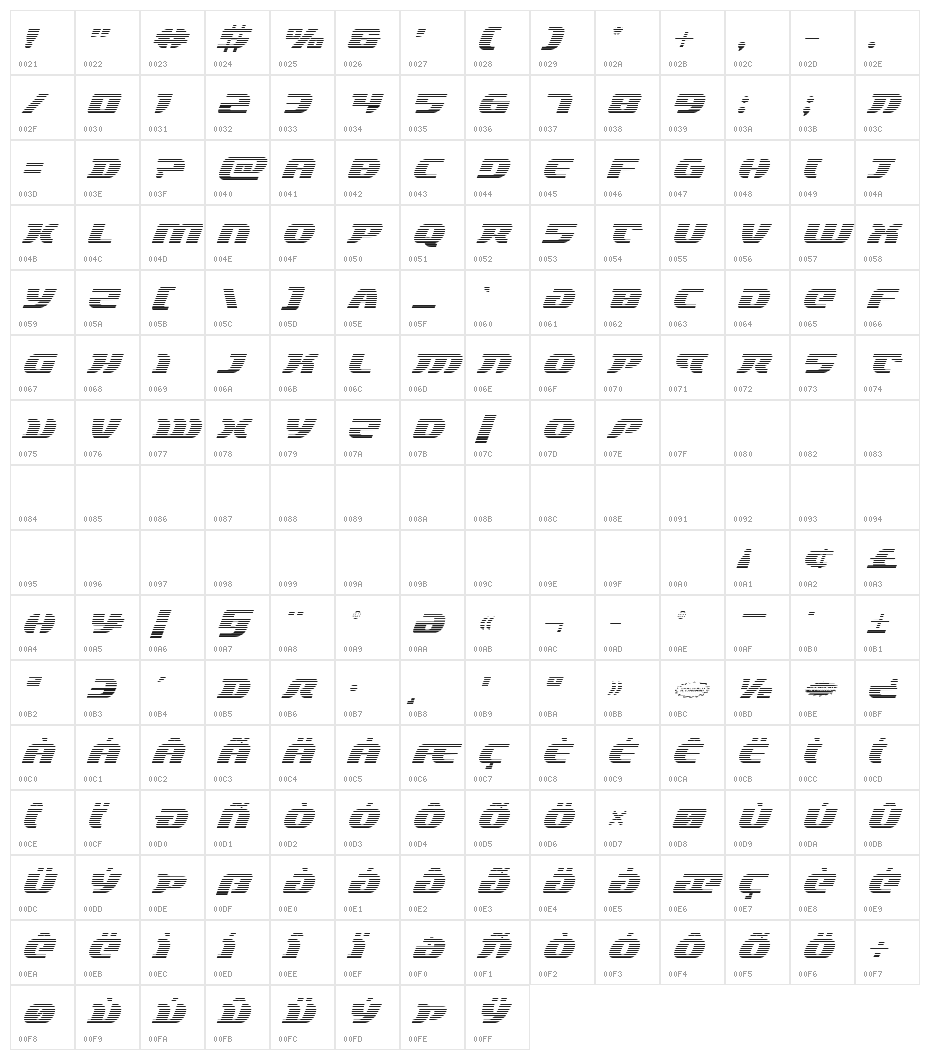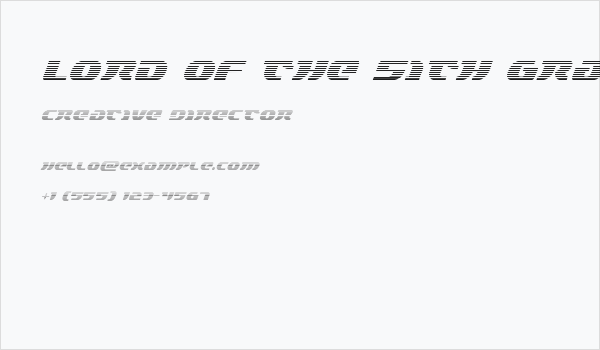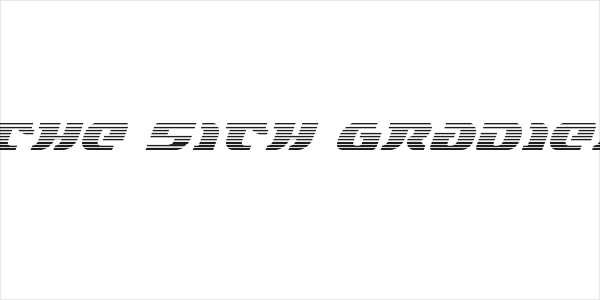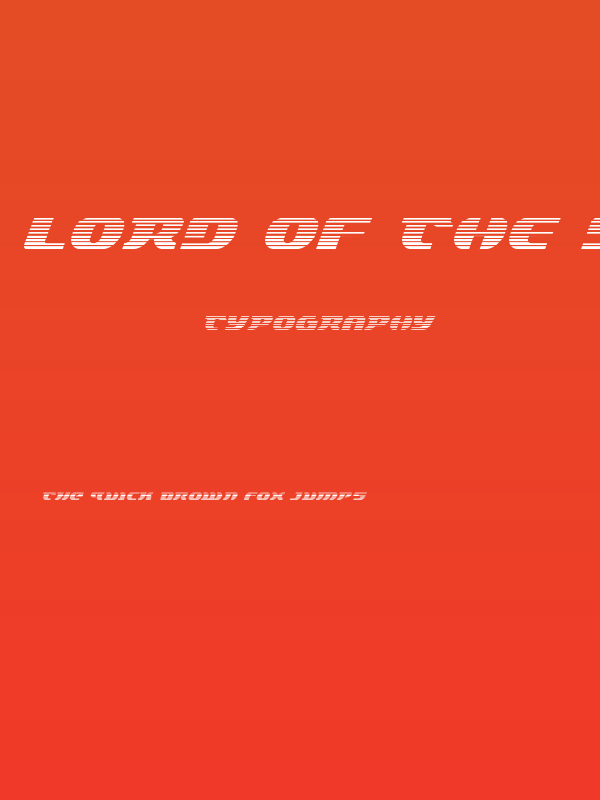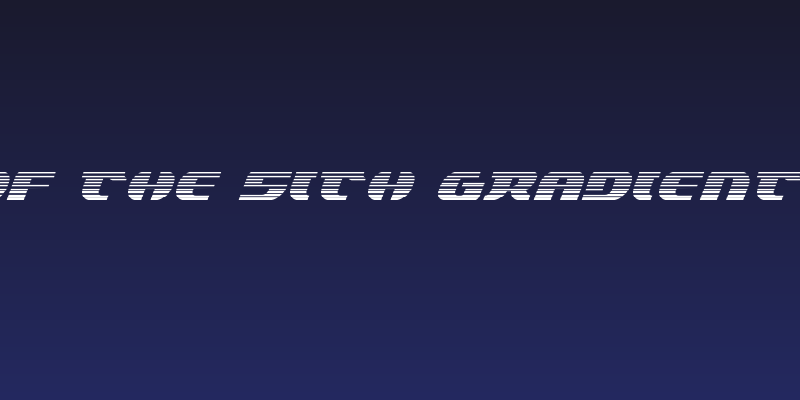
Lord of the Sith Gradient Italic Font
Lord of the Sith Gradient Italic Description
This font features a futuristic and dynamic design with a distinct gradient effect created by horizontal lines. The characters are italicized, giving them a sense of motion and energy. The bold and angular shapes contribute to a modern and edgy appearance, making it suitable for attention-grabbing designs. The uppercase and lowercase letters maintain consistency in style, while the numerals and special characters complement the overall aesthetic. The unique line pattern within each character adds depth and visual interest, making it ideal for projects that require a strong and impactful typeface.
| Proposed Projects | Ideal for sci-fi themed posters, video game titles, futuristic branding, and tech-related advertisements. |